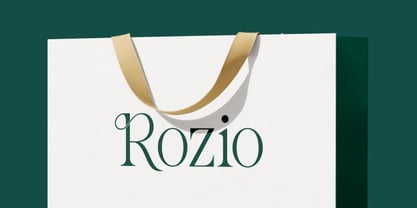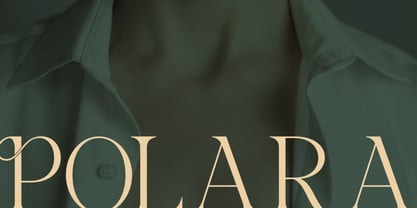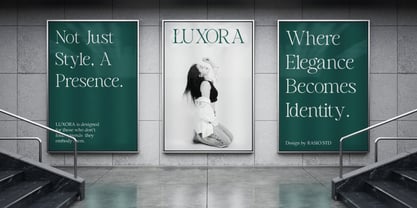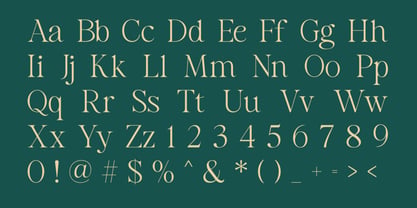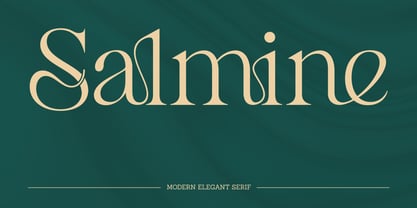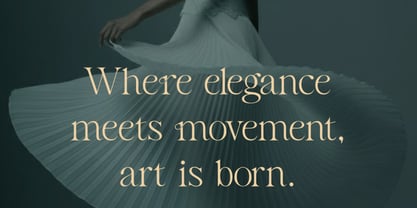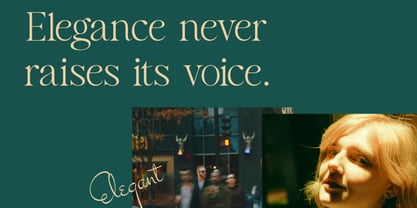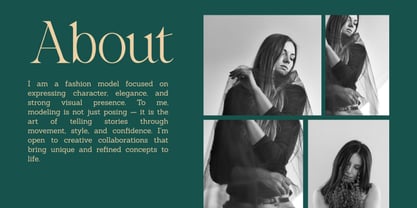
Salmine
Salmine is a modern elegant serif typeface crafted to express sophistication, fluidity, and timeless beauty. Designed with graceful curves, refined contrast, and subtle calligraphic influences, this serif font blends contemporary minimalism with classic high-fashion aesthetics. Salmine is highly suitable for luxury branding, fashion editorials, wedding invitations, beauty product packaging, boutique logos, high-end marketing campaigns, magazine layouts, social media branding, and refined website typography.